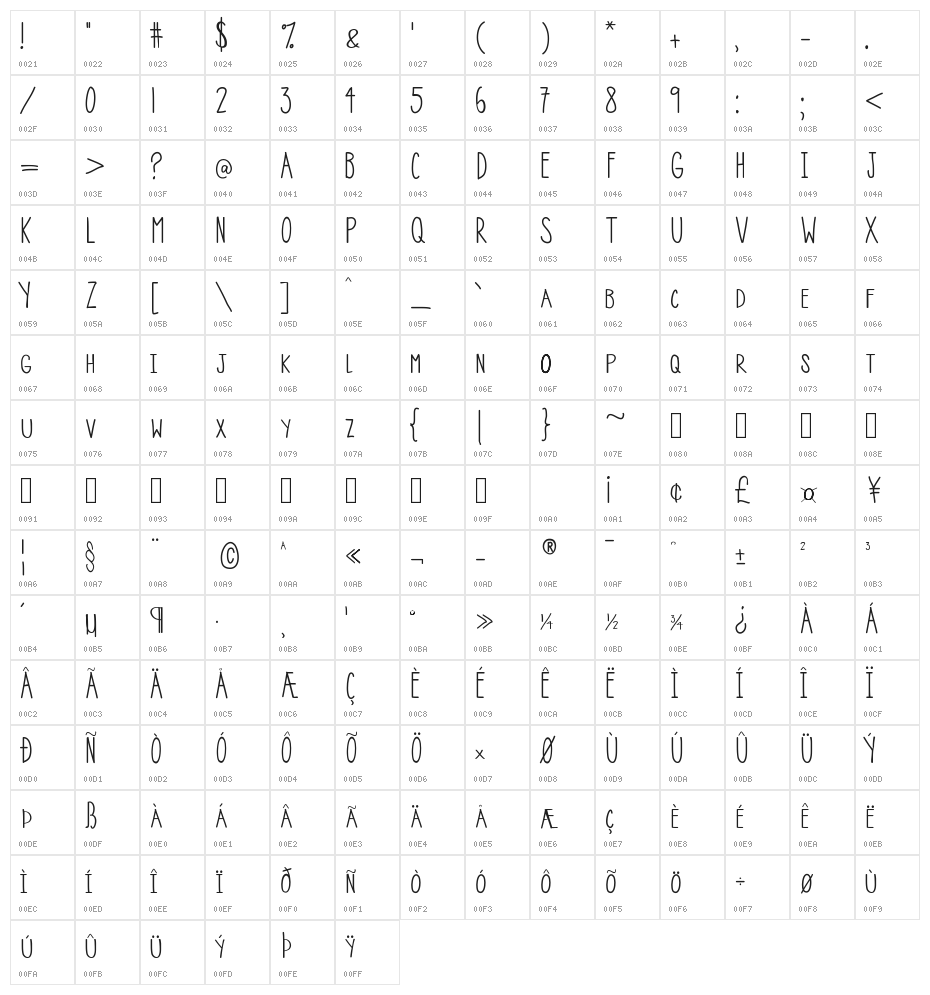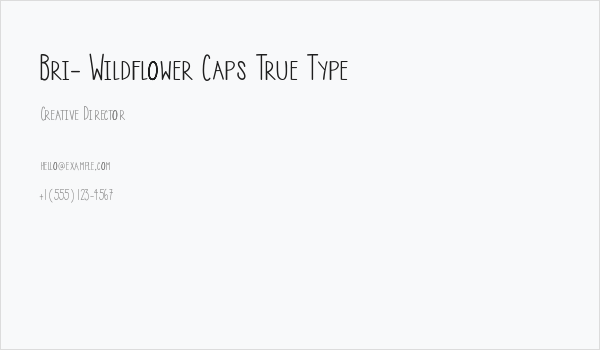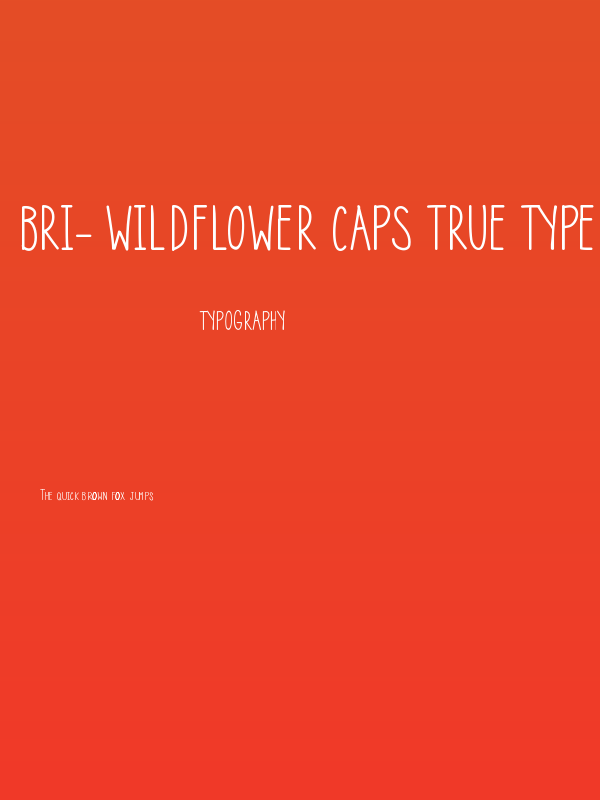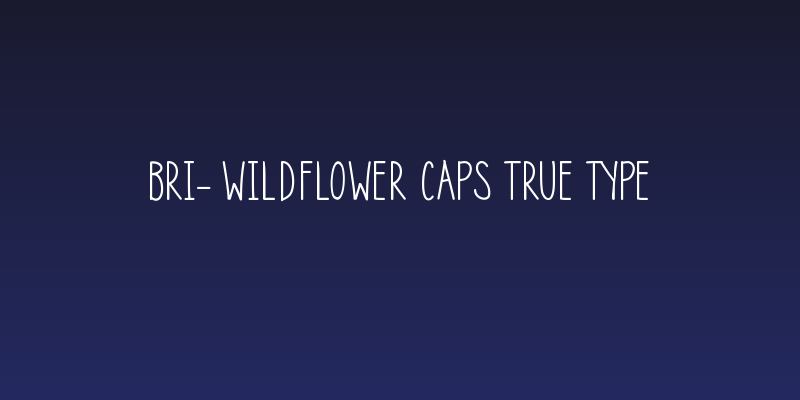
Bri- Wildflower Caps True Type Font
Bri- Wildflower Caps True Type Description
This font features a playful and whimsical handwritten style, characterized by tall, narrow letters with a consistent stroke width. The uppercase letters are slightly elongated, giving them a unique and casual appearance. The lowercase letters maintain the same playful aesthetic, with rounded edges and a slightly irregular baseline that adds to the hand-drawn feel. The numerals are clear and legible, matching the overall style of the alphabet. Special characters are included, maintaining the same quirky and informal design. This font is ideal for projects that require a personal touch or a fun, approachable vibe.
| Overall Style | Casual, Whimsical |
| Proposed Projects | Ideal for greeting cards, children's books, playful branding, and casual invitations. |